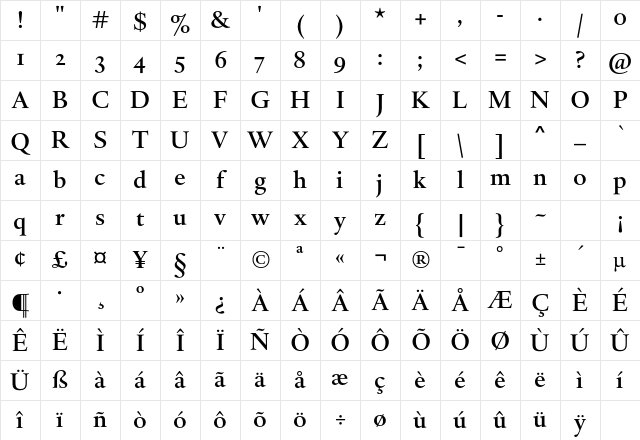
DTLHaarlemmerSD Medium
Design Context for DTLHaarlemmerSD
DTLHaarlemmerSD is a composed and adaptable typeface that performs quietly and consistently across a wide range of design contexts.